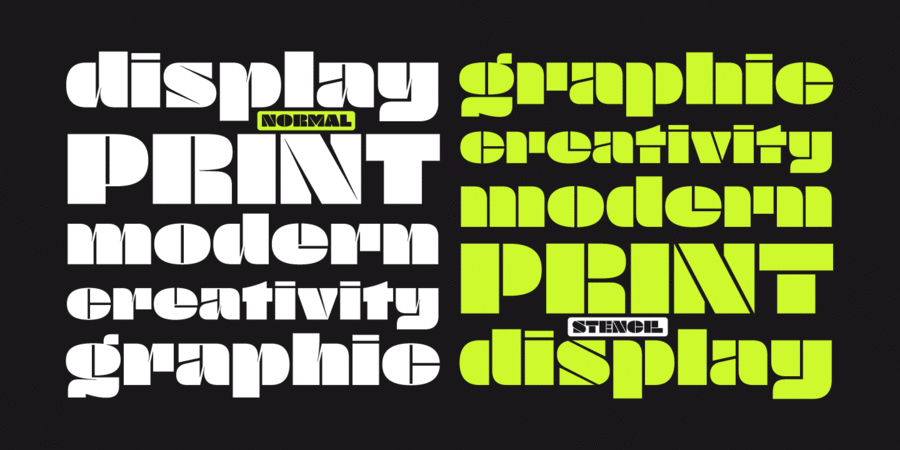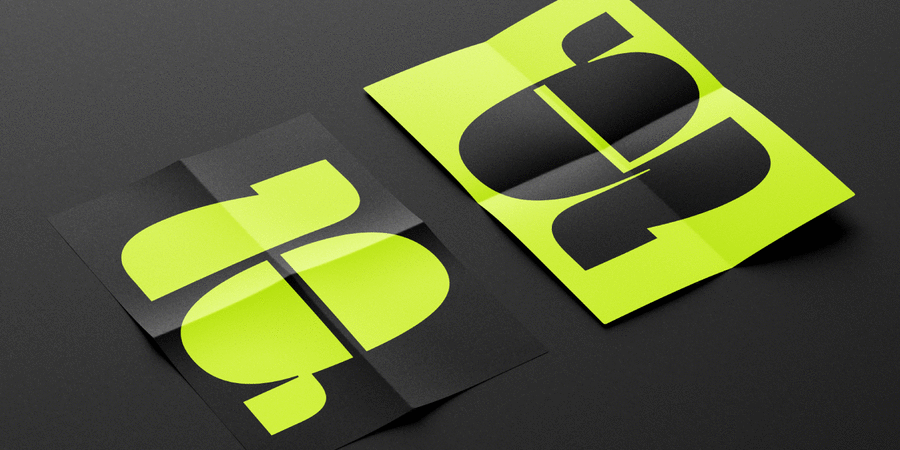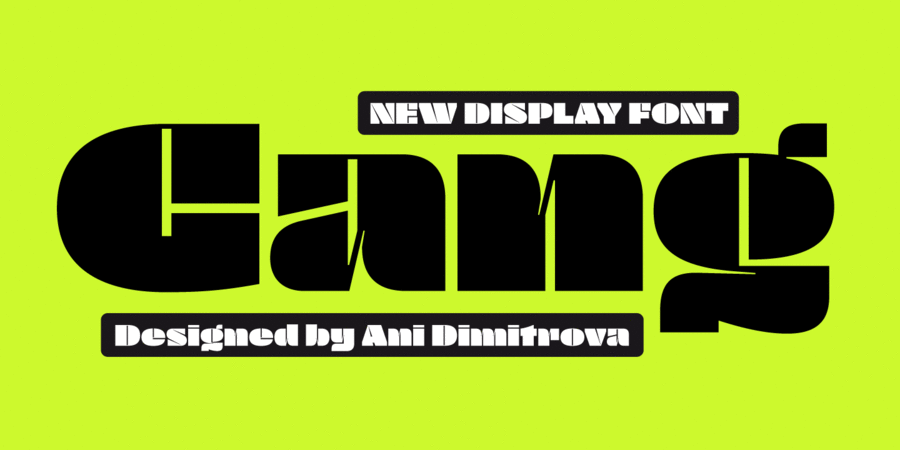
Gang is a two style display font family with a stencil variant. Both font styles contain a set of extended Latin and Cyrillic, as well as all sorts of open type features: standard ligatures, proportional figures, numerals, arrows, matching currency symbols, and fractions. In both styles, the font is well-suited for large headlines, word emphasis, and different types of advertising. The fonts' wide proportions make them a perfect choice for screen usage. This style palette offers a flexible range for display typography. The Gang type family is ideally suited for magazines, branding, posters, as well as web and screen design, and more. The typeface was designed by Ani Dimitrova in 2022.